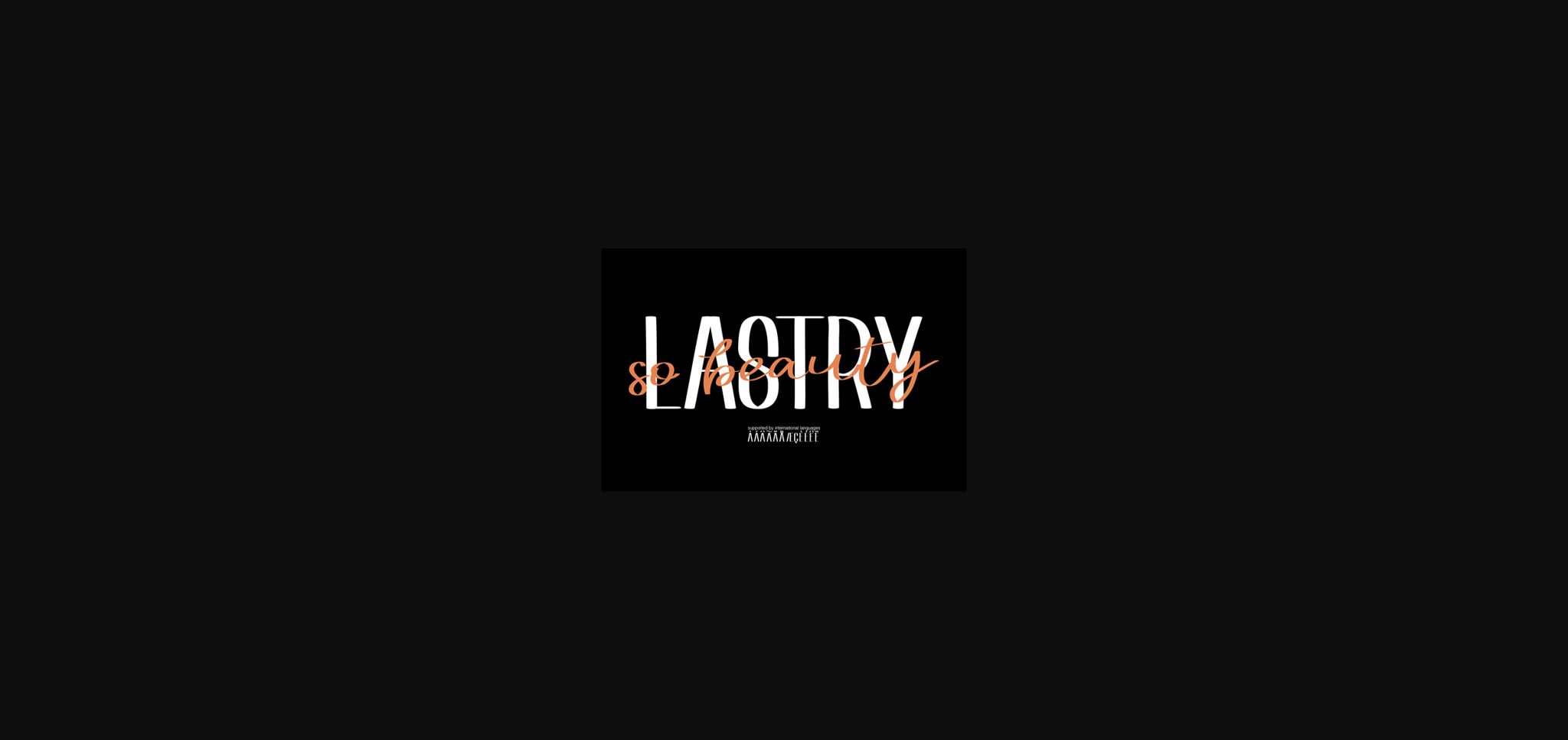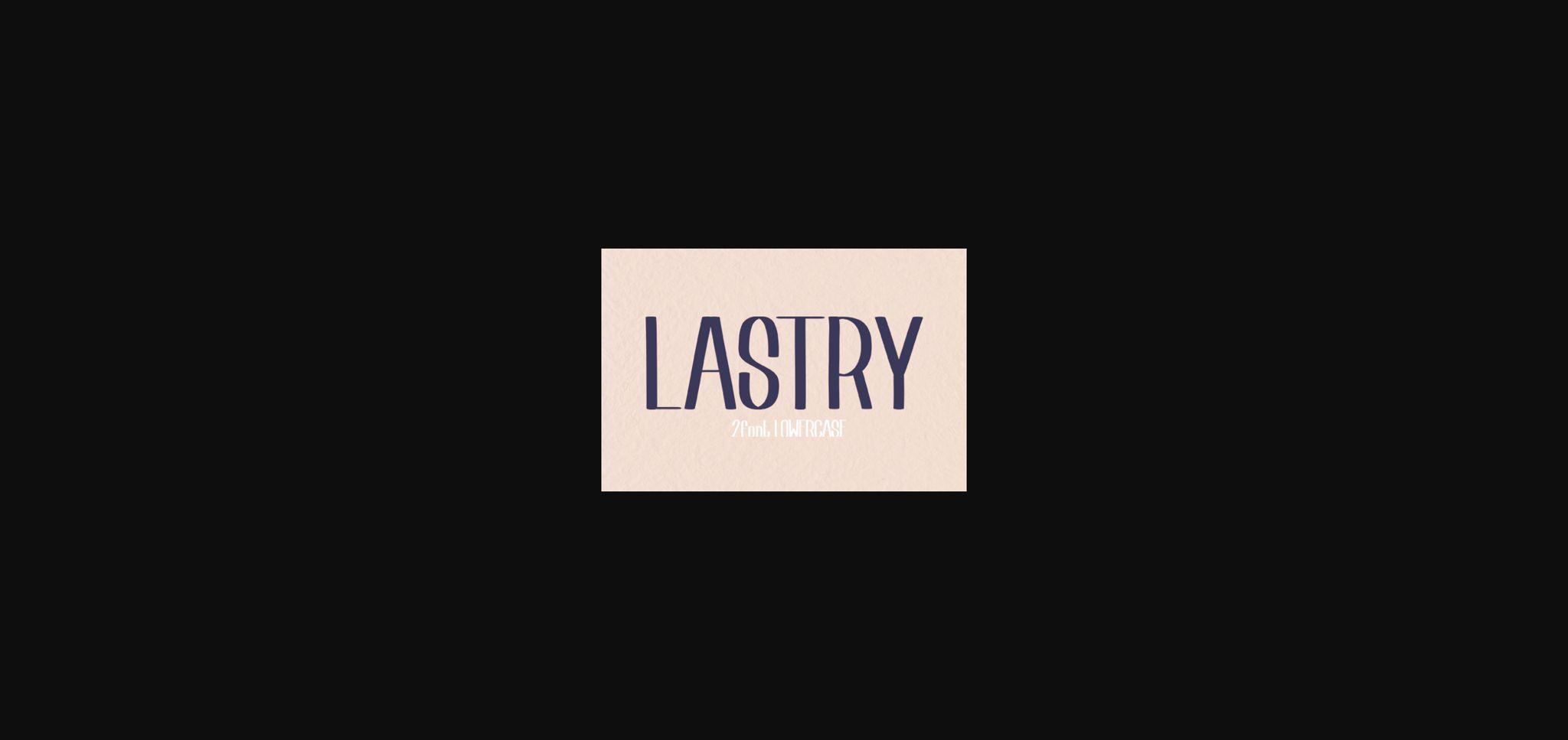
About Lastry Font
Lastry is a beautiful and strong sans serif font. It will look particularly adept when used in logos, branding, packaging design, and much more.This masterfully designed typeface is a true must-have.